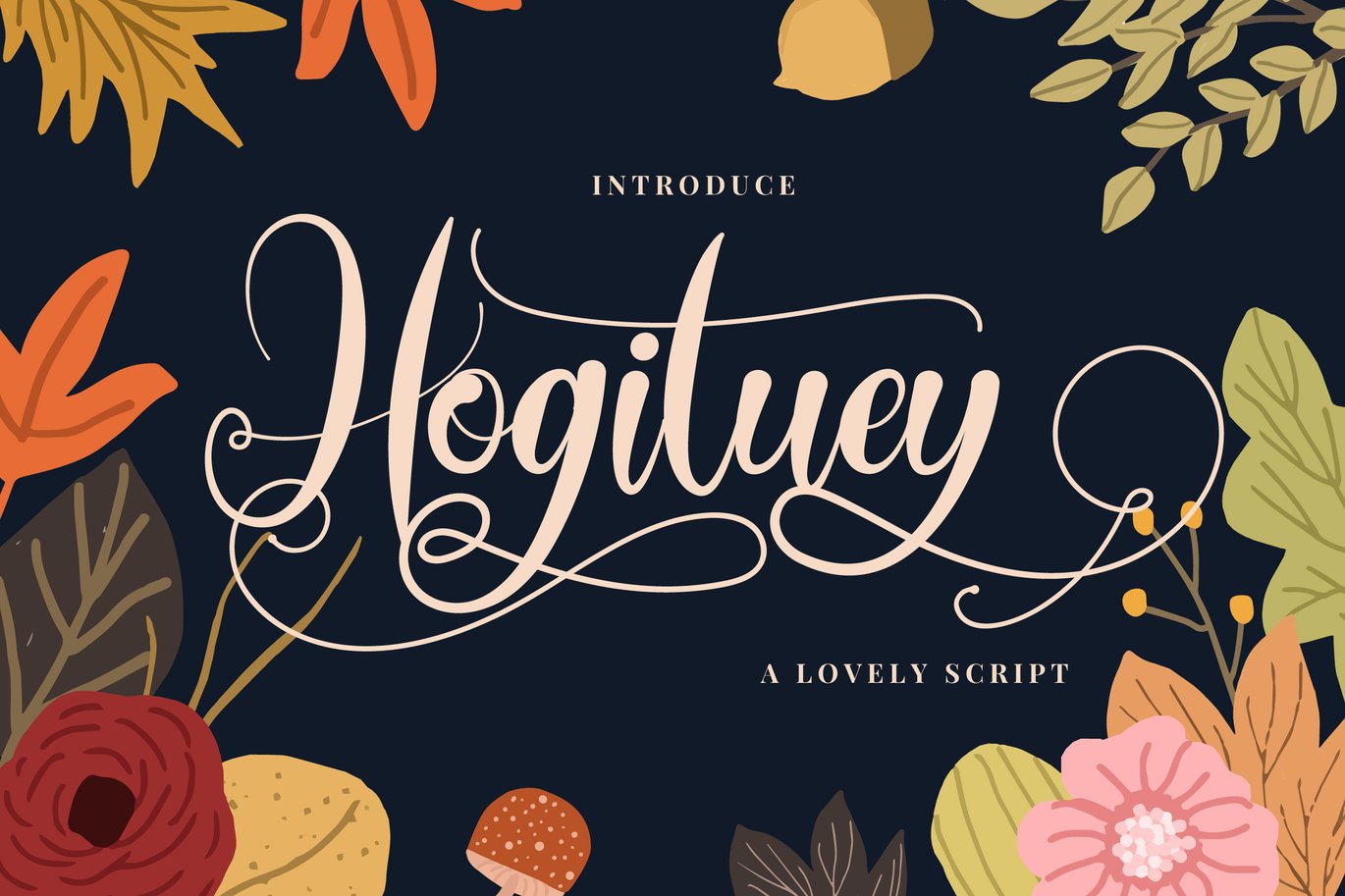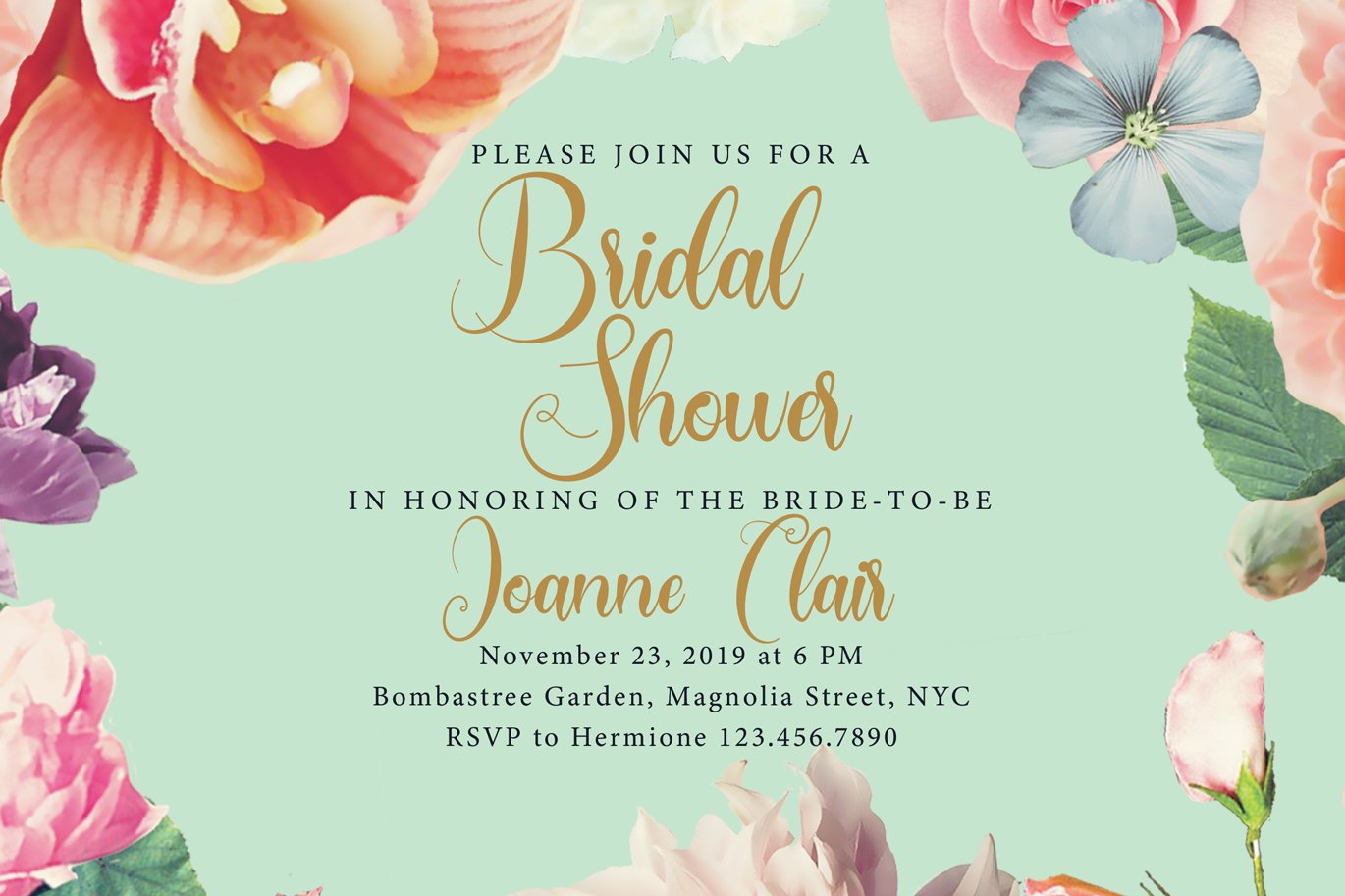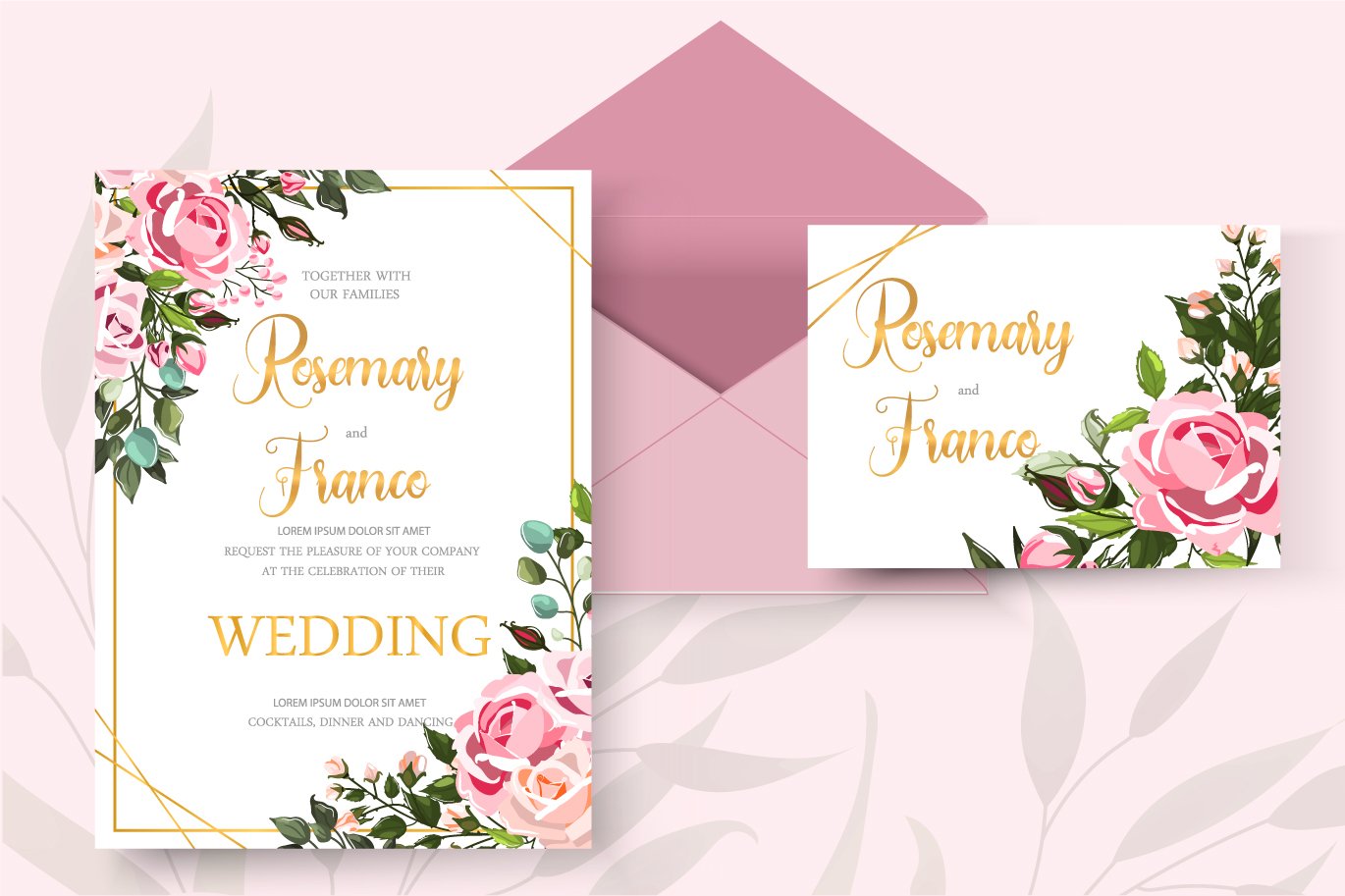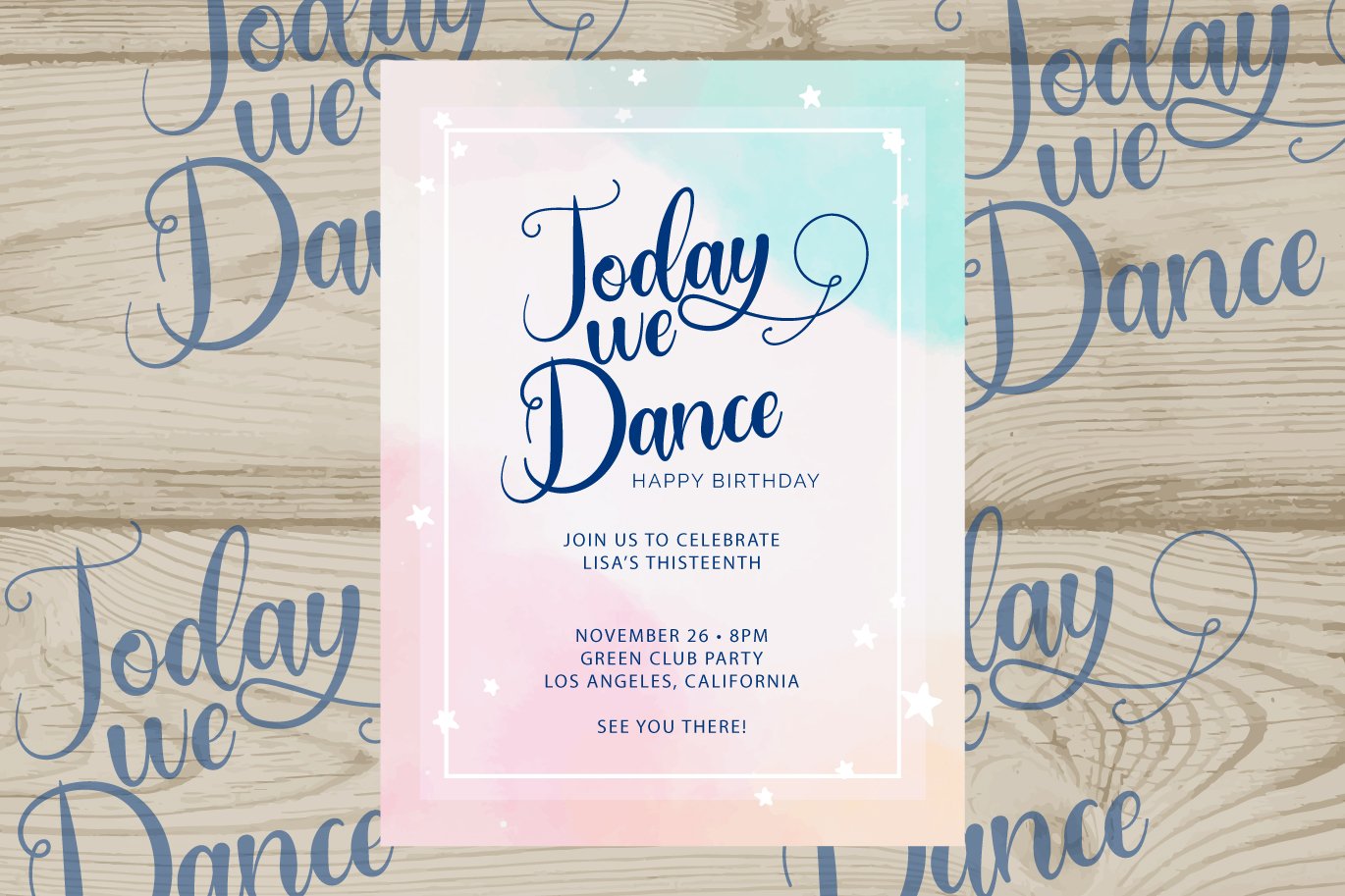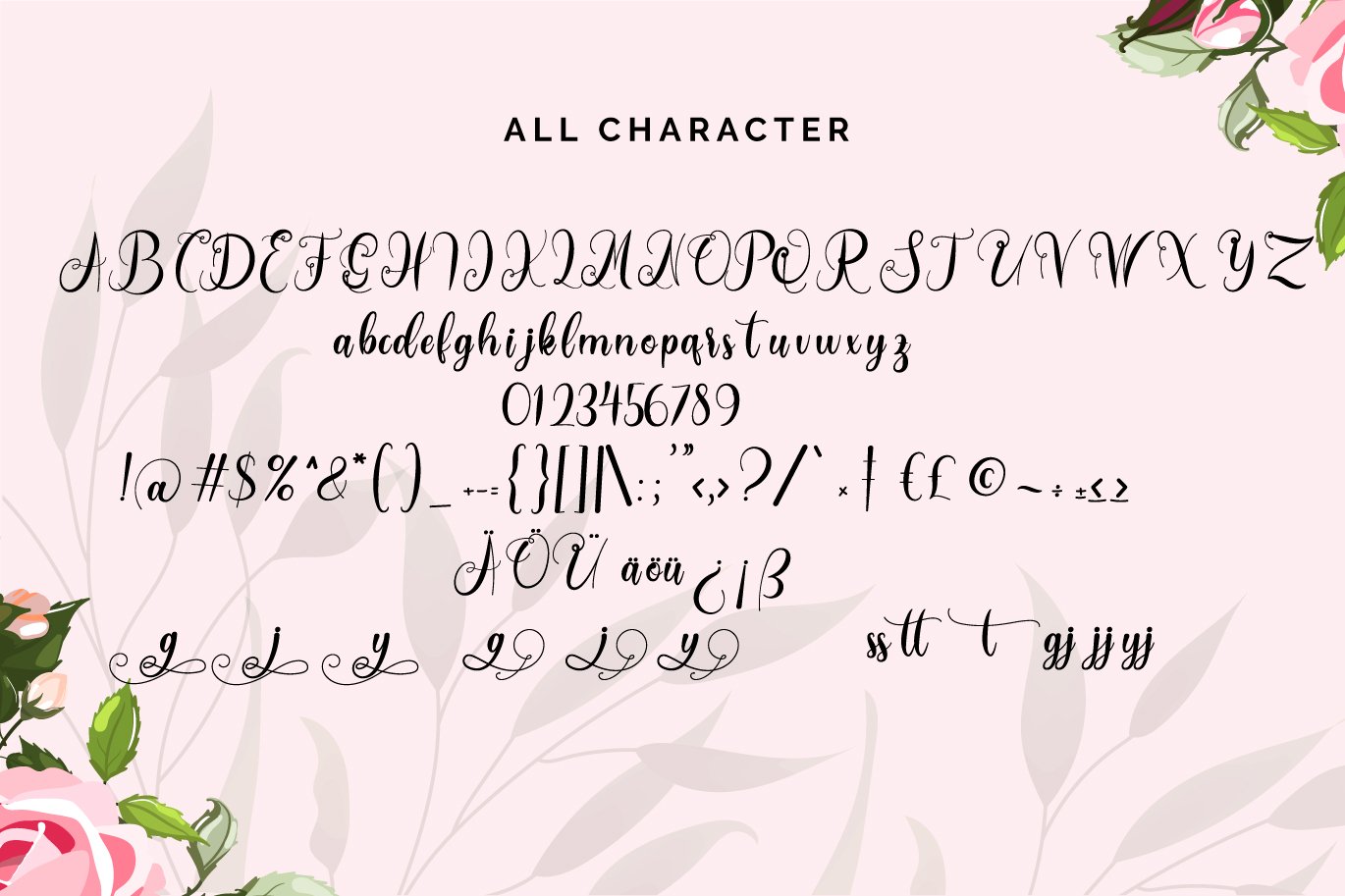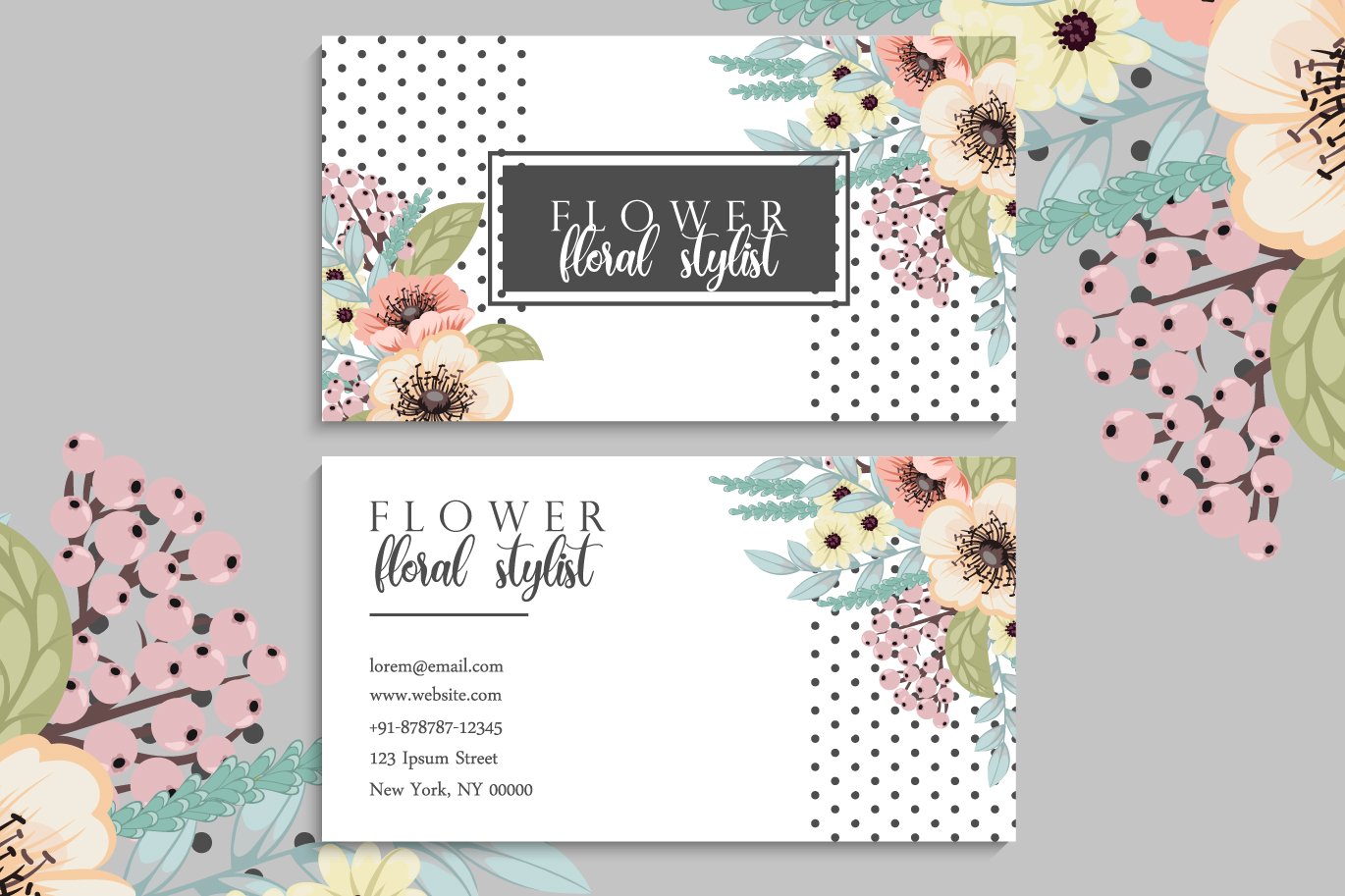
Hogituey | Candy Funny Font
Hogituey | Candy Funny Font with a calligraphy style, So beautiful on invitation like greeting cards, branding materials, business cards, quotes, posters, and more!